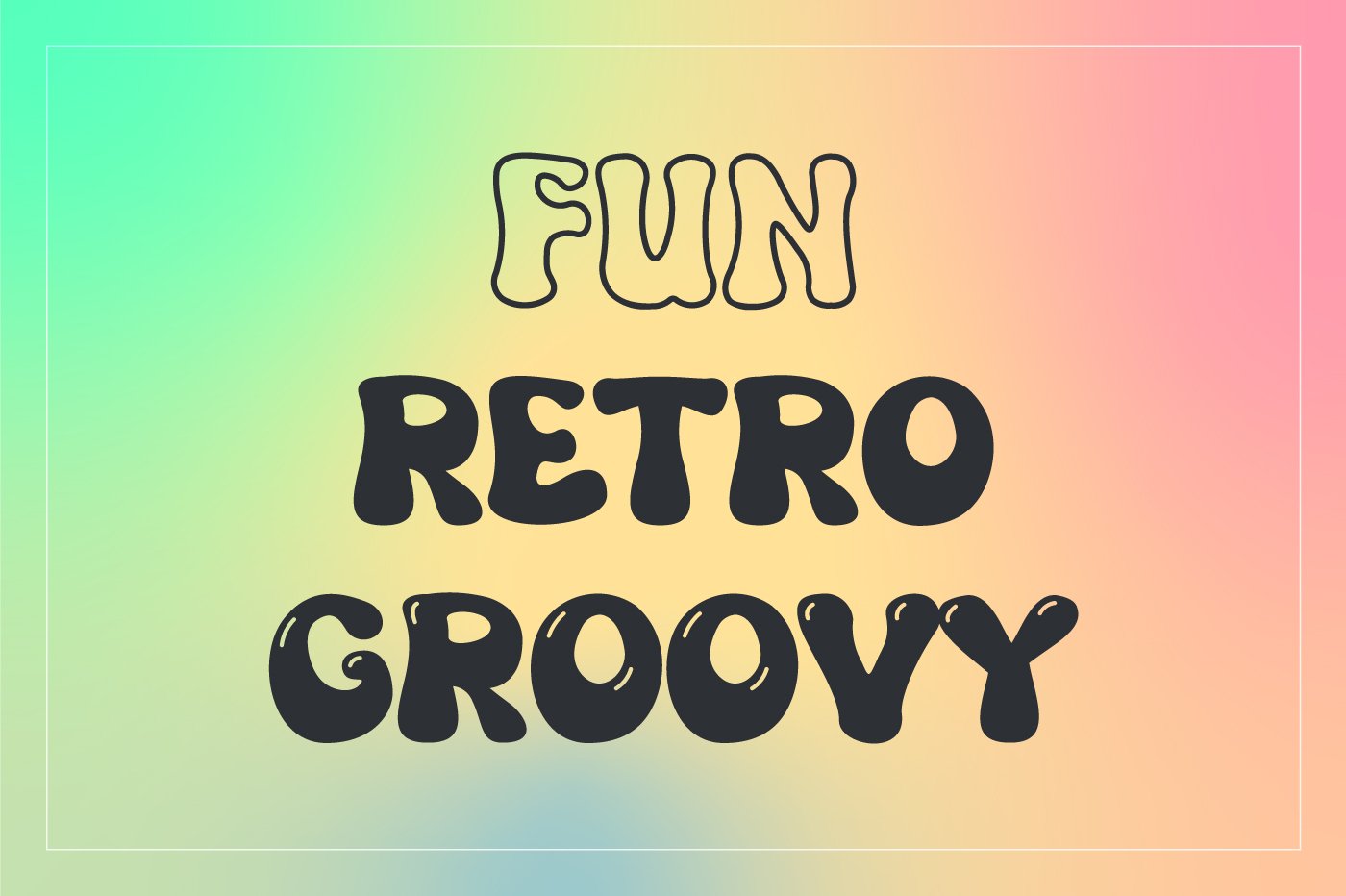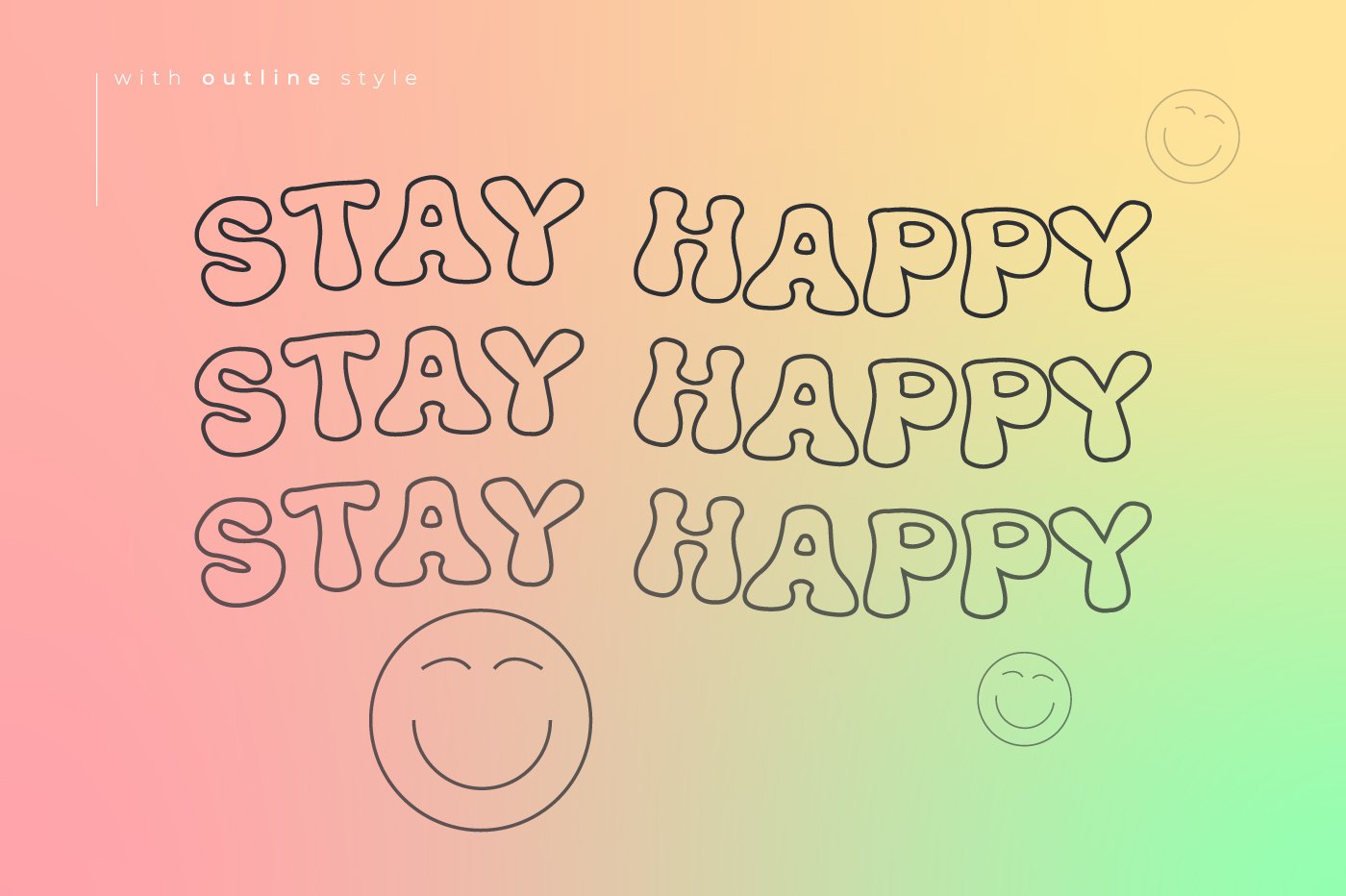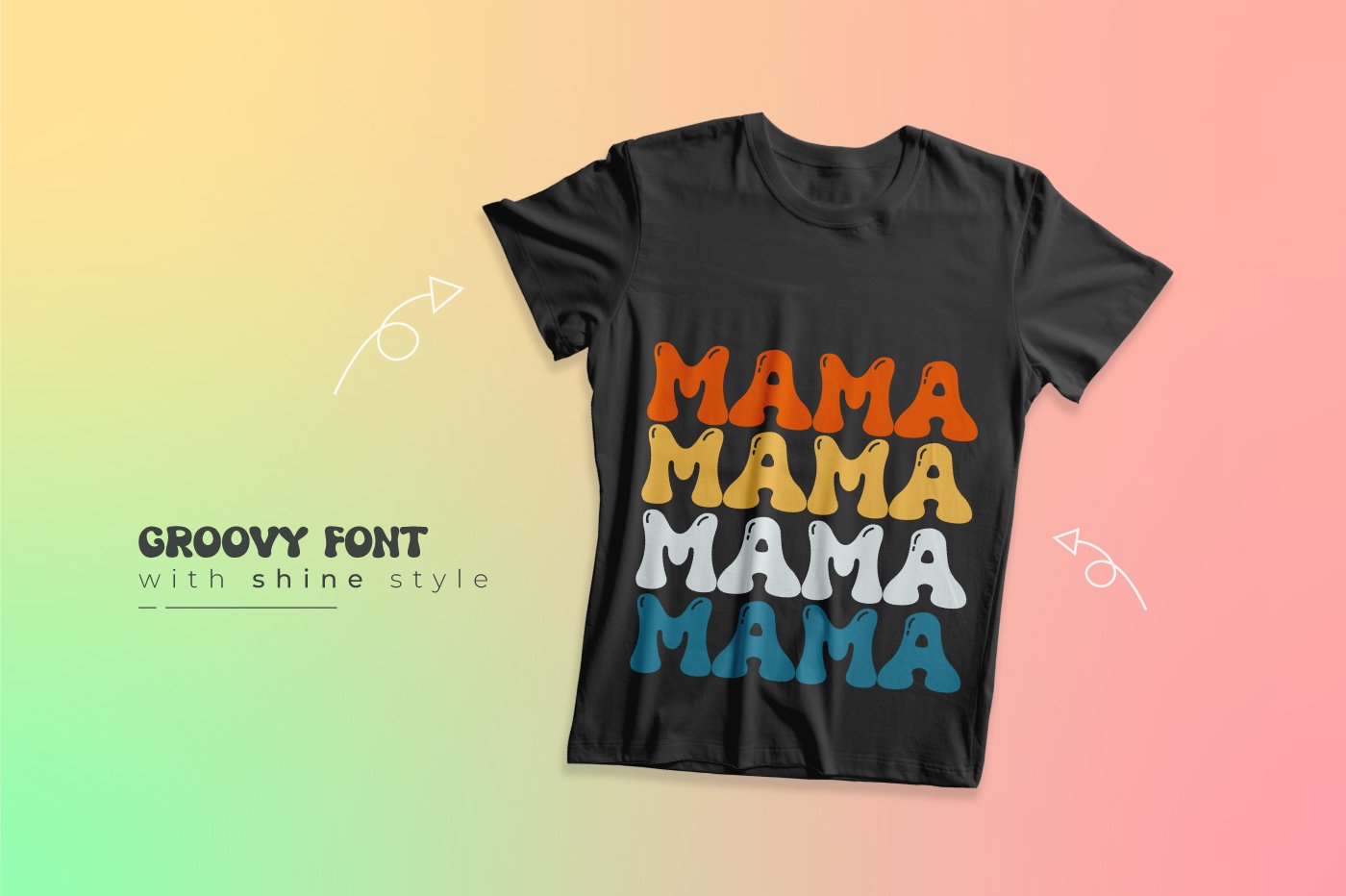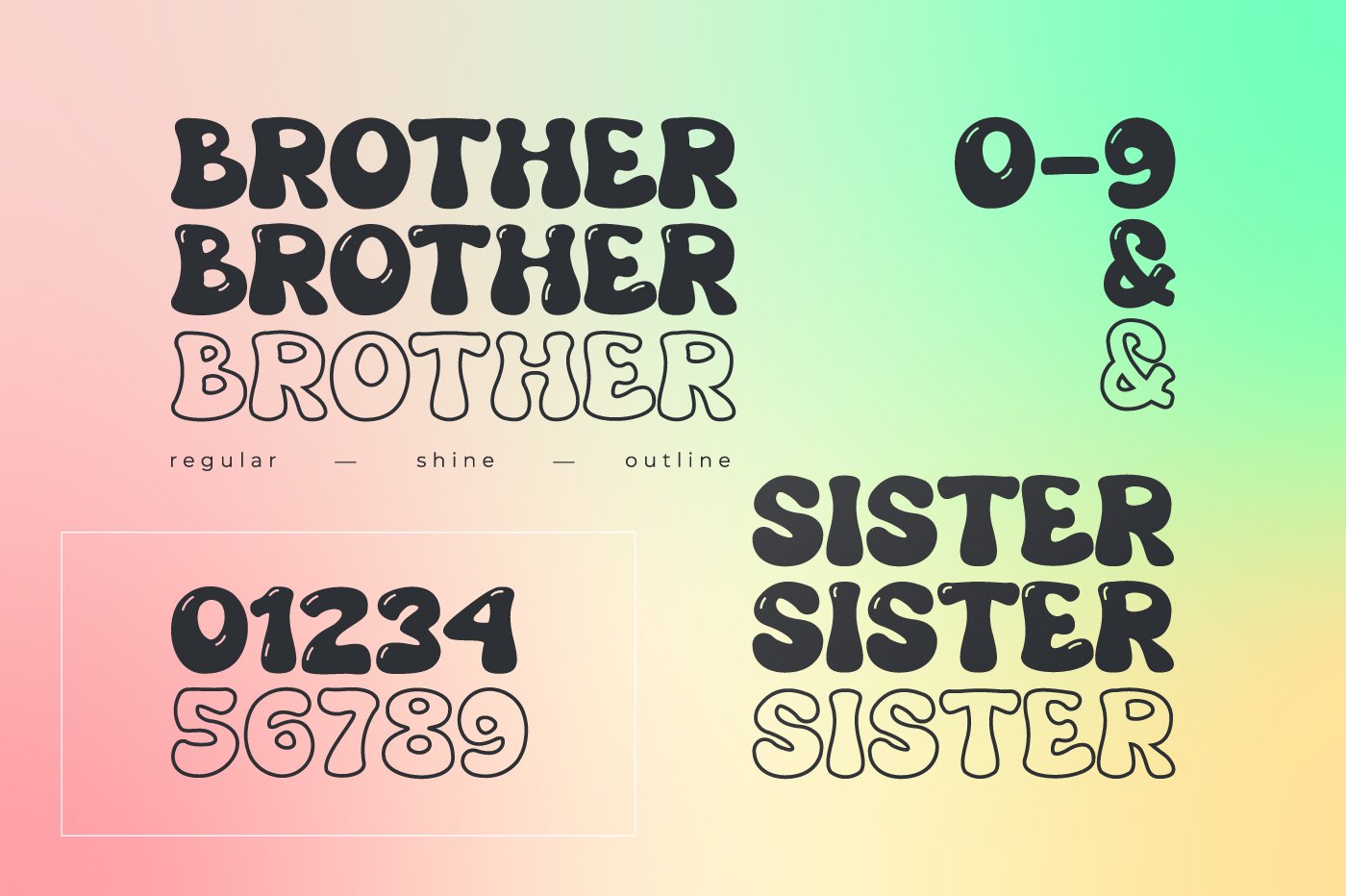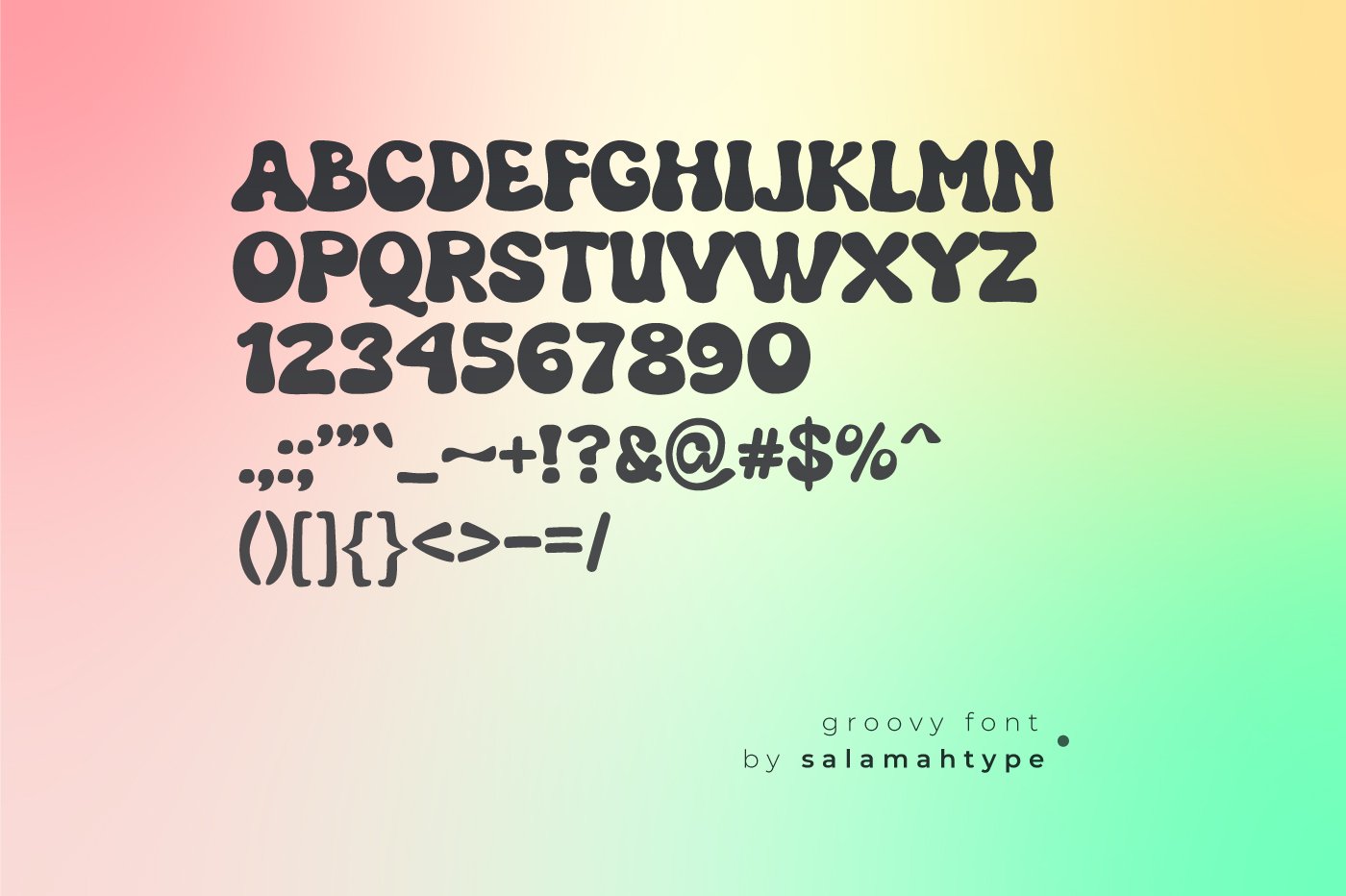
Grooven is a groovy font with 3 styles regular, shine, and outline. This font is perfect for any project you want such as social media posts, advertisements, product packaging, product design, photography, quotes, t-shirts, mugs, merchandise, and more.
- 3 styles regular, shine, and outline
- Standard glyphs – All caps
- Number and Symbol